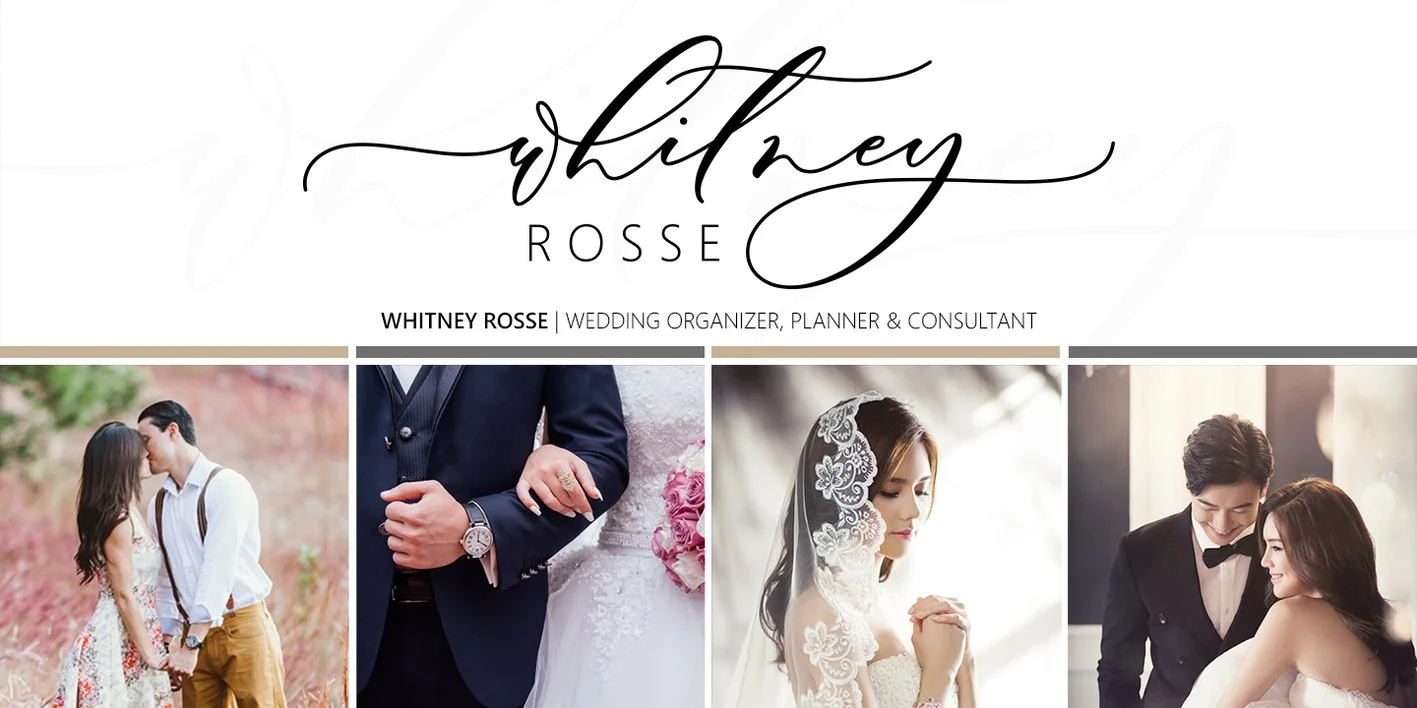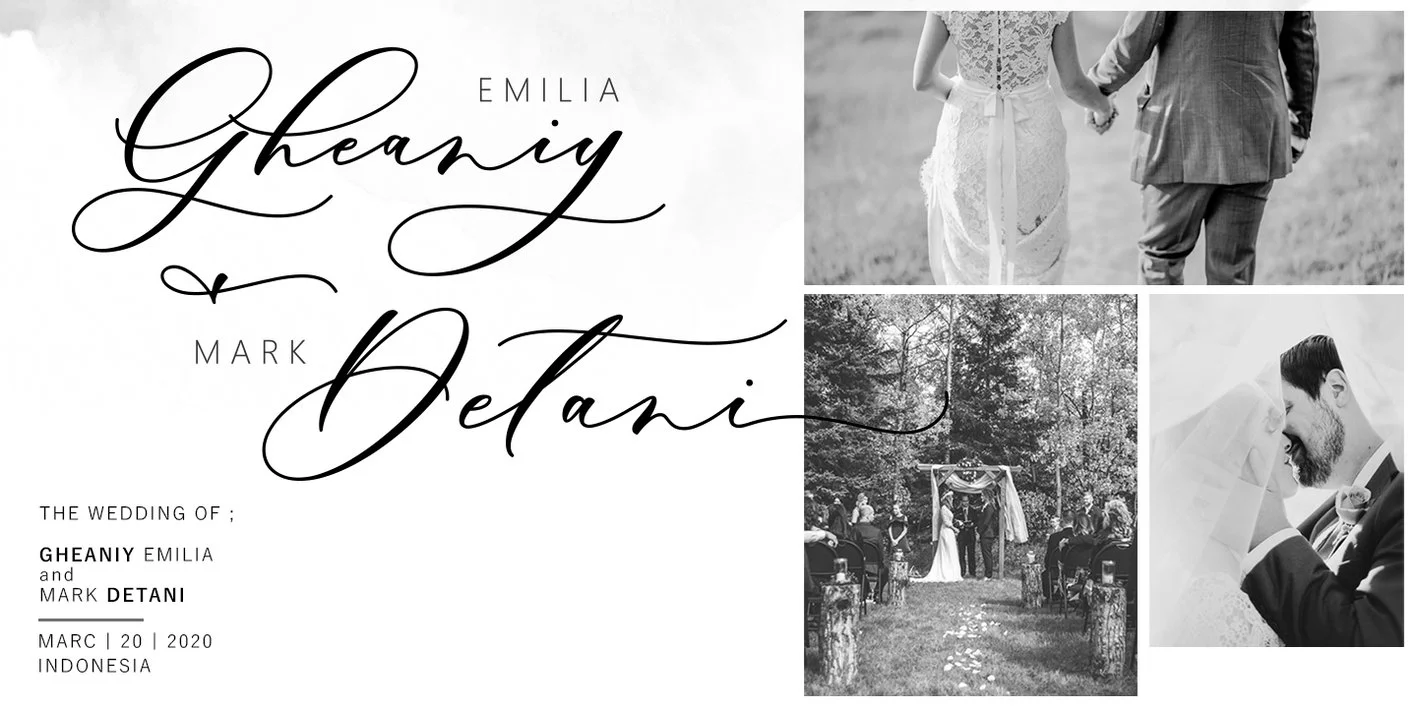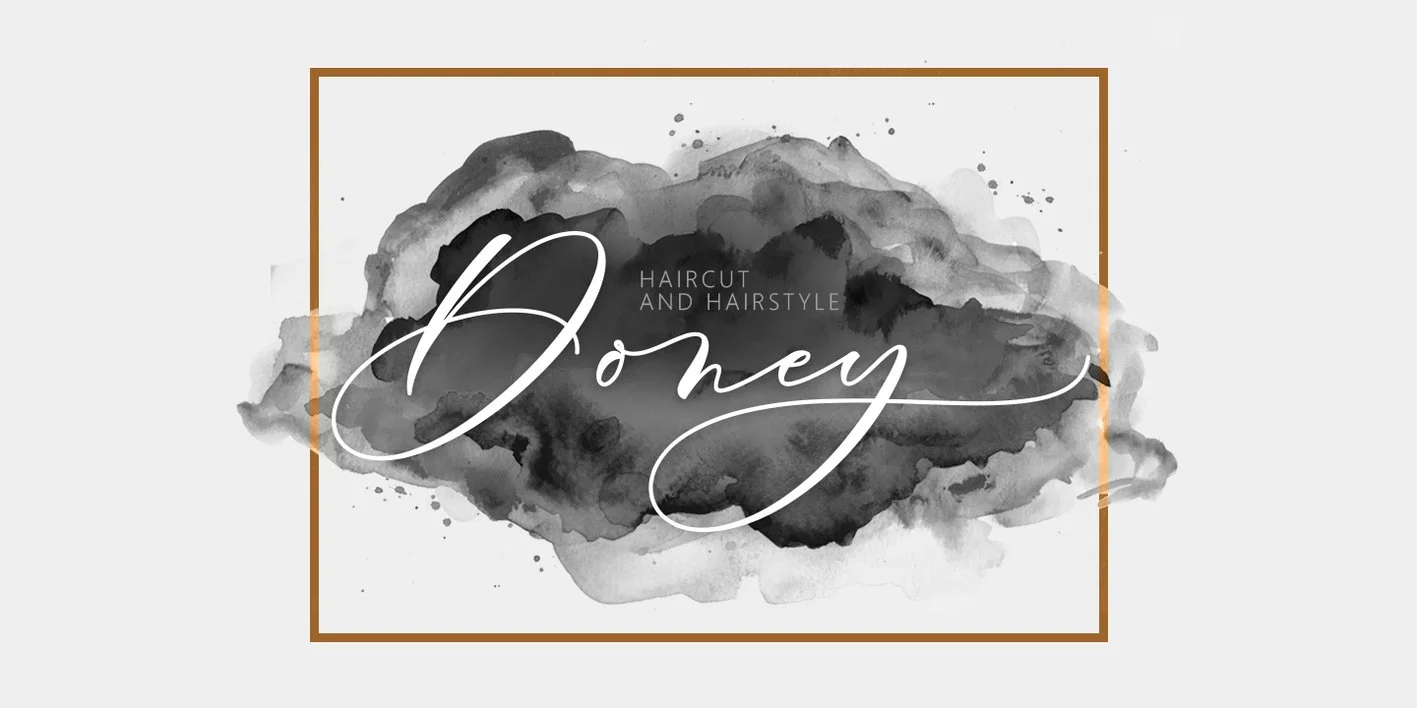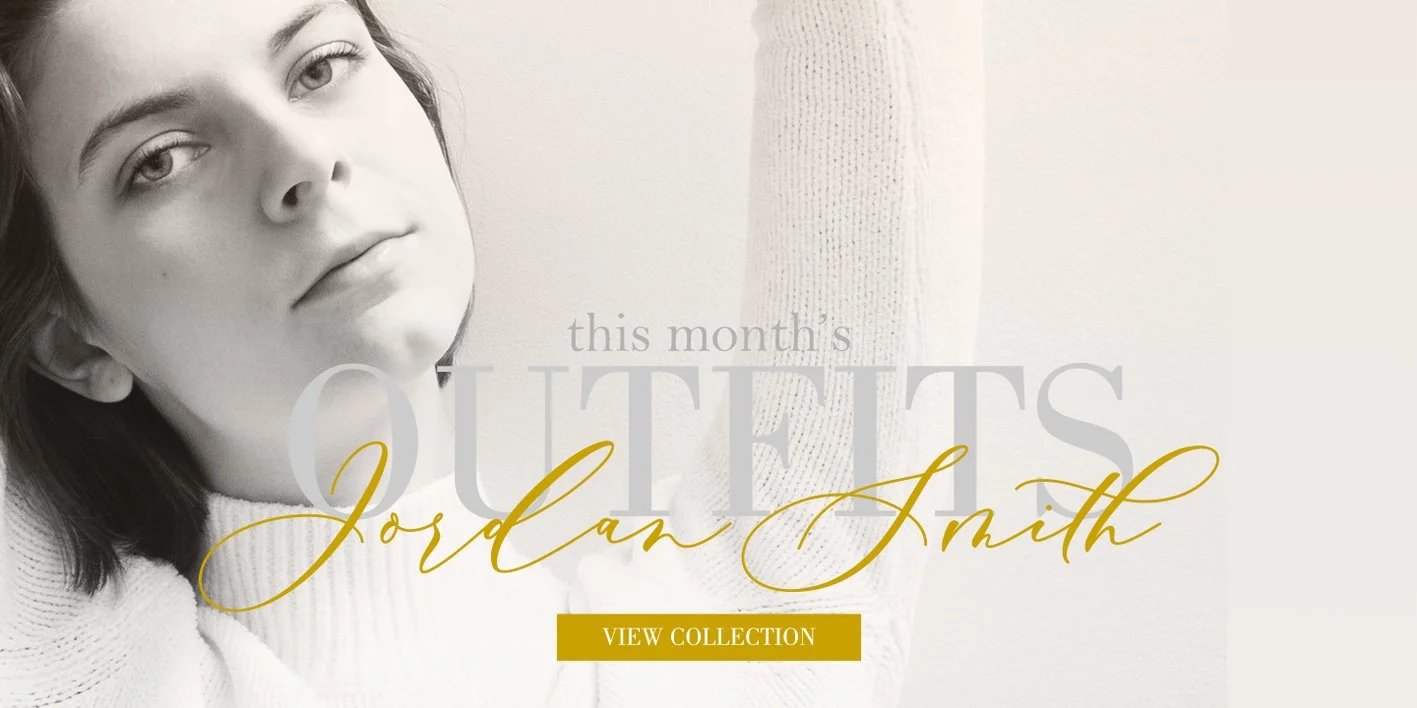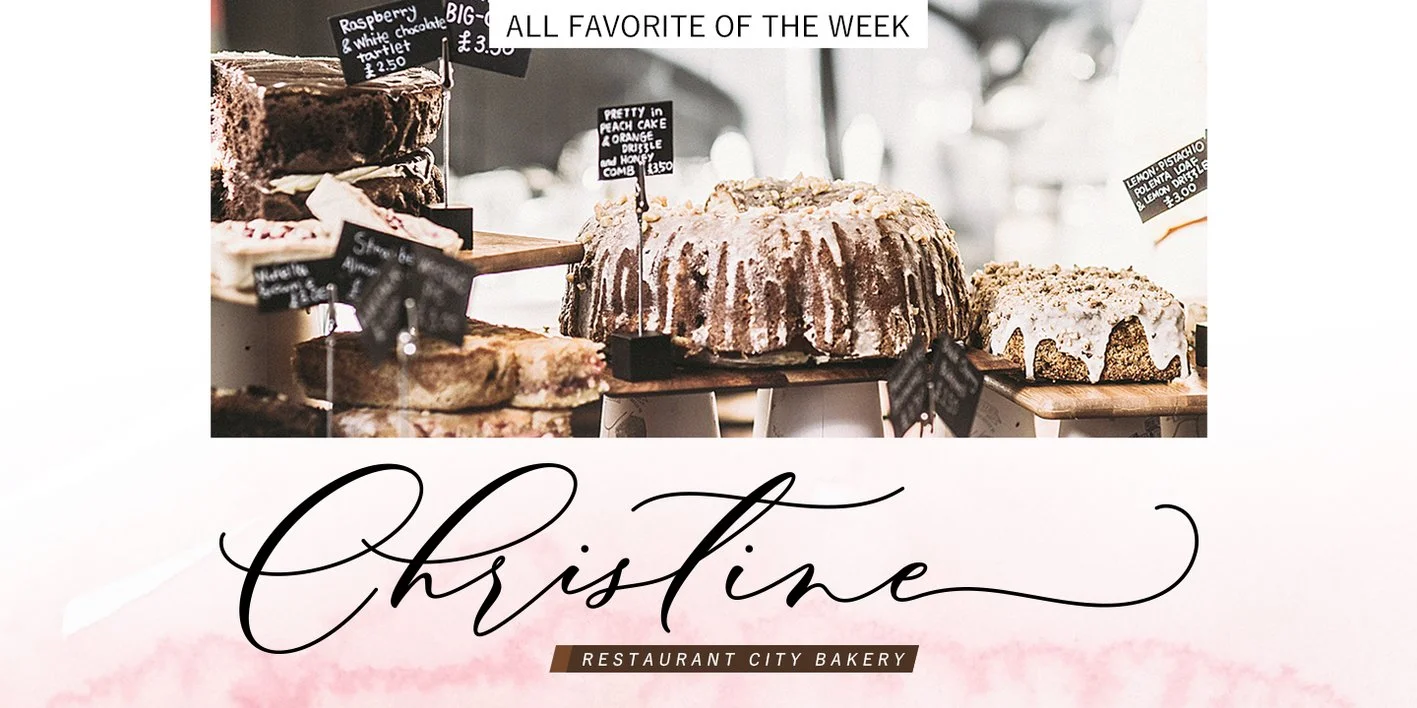
Cathiy Betiey Font
A good typeface communicates tone before a single word is read. Cathiy Betiey achieves this through consistent type colour across continuous text. The typeface brings a versatile sensibility to a broad range of creative disciplines, with a confident voice that adapts to diverse briefs that holds up whether the work is print-first or screen-first.
In practice, Cathiy Betiey proves particularly effective for signage systems, product labels, web design, brand identity systems, editorial layouts. Designers reaching for it find that the type decisions feel resolved rather than laboured — a useful quality when client timelines are tight.
The range of applications extends to environmental graphics, social media graphics, advertising campaigns, poster creation. That breadth is deliberate: the proportions and spacing were stress-tested across a wide range of mock briefs before the typeface was finalised.
Cathiy Betiey sits comfortably alongside both classic and contemporary typefaces in multi-font hierarchies. It takes direction rather than competing for attention — a quality that experienced designers know is harder to find than it appears.
In-house creative teams at consumer brands find Cathiy Betiey a reliable choice for projects that demand both personality and restraint. The design avoids the self-conscious quirkiness that dates quickly, settling instead for considered distinctiveness that holds up over time.